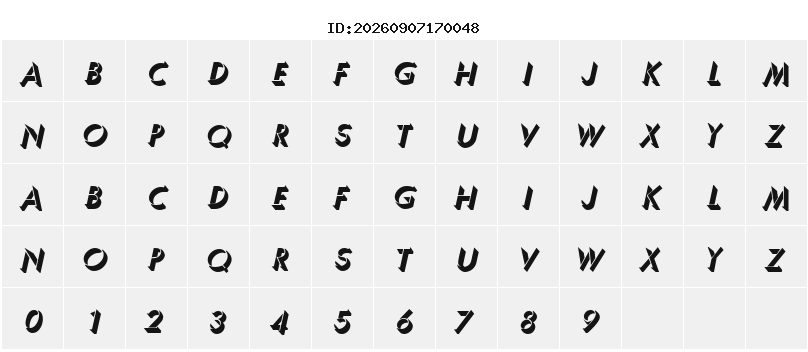
Umber Preview
• Font Name: Umber
• Font Style: BoldItalic
• Font ID: Altsys Fontographer 4.1 Umber BoldItalic
• Full Font Name: Umber BoldItalic
• Version: Altsys Fontographer 4.1 12/22/94
• PostScript Name: UmberBoldItalic
About Umber.ttf
Umber.ttf is a modern, elegant sans-serif font designed for ultimate readability and visual harmony. Perfect for branding, headlines, web design, and print materials.